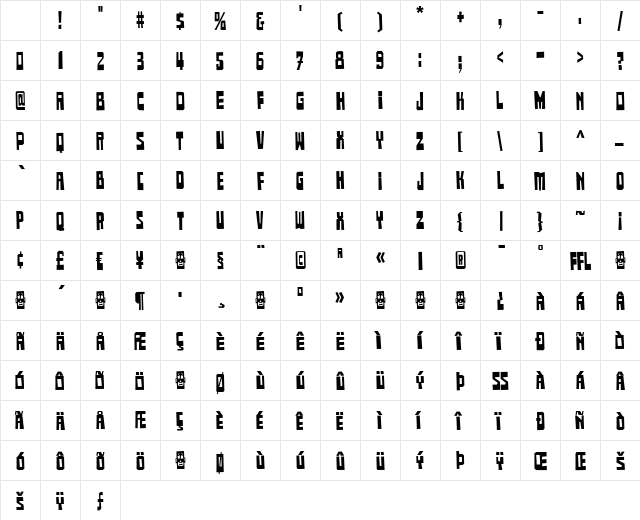
Complete Buster Regular glyph index. Displaying only characters natively supported by Buster Regular font.
Buster is a composed and adaptable typeface that performs quietly and consistently across a wide range of design contexts.